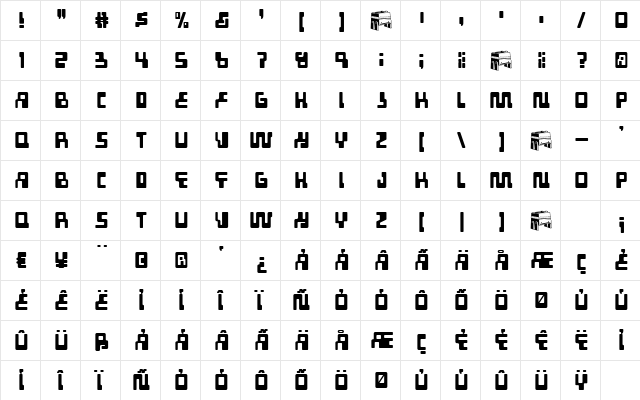
Tabletron Regular
Design Context for Tabletron Typeface
Tabletron is a composed and adaptable typeface that performs quietly and consistently across a wide range of design contexts.